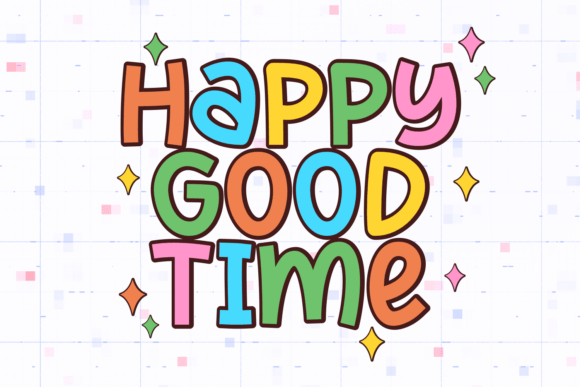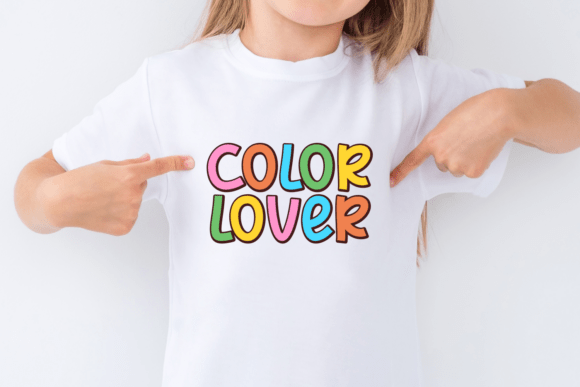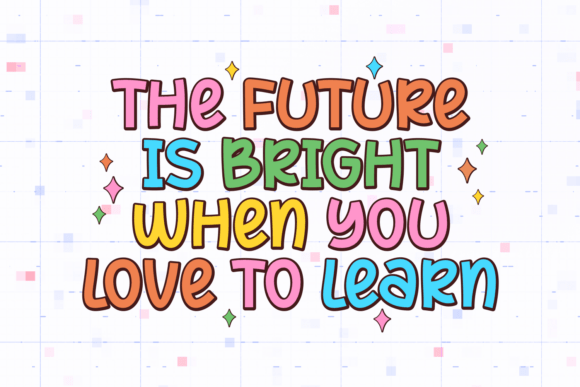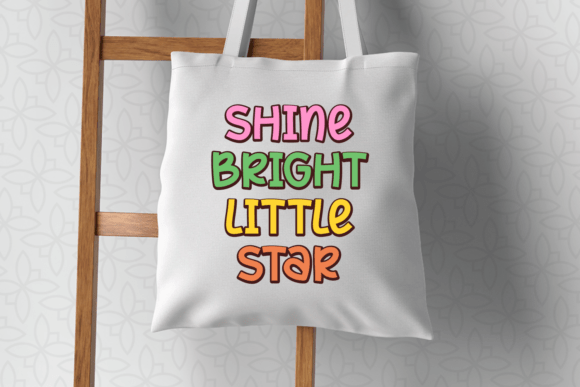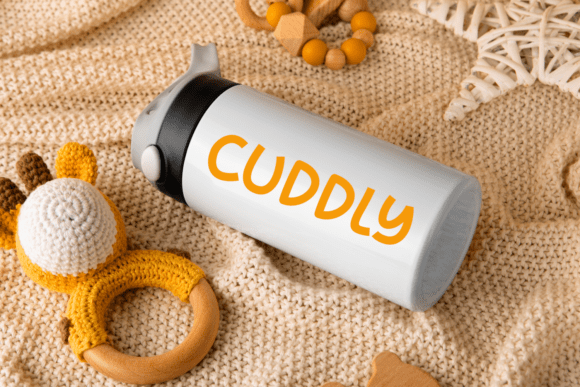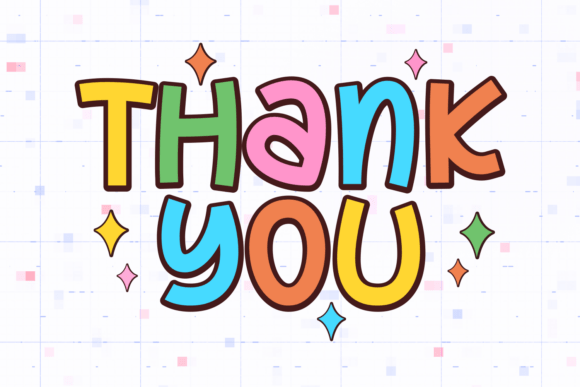
Introduction to Color Jump Font
Do you remember the joy of creating with crayons and markers as a child? The thrill of bringing a colorful world to life with every stroke and every scribble? That sense of unbridled creativity is what the Color Jump Font embodies. This vibrant typeface is a design resource that will transport you back to a time when art was a carefree expression of imagination.
As a designer, you’re always on the lookout for the perfect font to elevate your creative project. The Color Jump Font is an excellent choice for kid-friendly designs, with its rounded, bold strokes and whimsical aesthetics. Its high-quality design is perfect for backgrounds with a transparent background, making it a versatile addition to any design.
With its quirky appeal and friendly tone, the Color Jump Font is a free download that’s sure to add a touch of fun to your next project. Whether you’re working on a children’s book, a cartoon, or a playful advertisement, this font is a must-have for designers who want to inject a little magic into their work.
Key Features of Color Jump Font
- Includes a range of unique characters and glyphs for added creativity
- Perfect for designers, artists, and writers looking for a distinctive and eye-catching font
Honest Review: Color Jump Font
I recently stumbled upon the Color Jump Font and I must say, it’s been a game-changer for my design projects. The font is incredibly versatile and offers a range of styles that can add a pop of color to any creative project.
- What works well: ✨ The font is super easy to use and comes with a transparent background, making it perfect for adding text overlays on top of images or videos.
- What works well: ✨ The high-quality design ensures that the font looks great on any device, from desktops to mobile phones.
However, I did encounter a few limitations with the Color Jump Font. ⚠️ The font may not be suitable for formal or professional projects, as it has a more playful and casual vibe.
Overall, I’m thoroughly impressed with the Color Jump Font and would highly recommend it to anyone looking for a fun and creative design resource. It’s perfect for personal projects, social media graphics, or even advertising campaigns.
Tips for Getting the Most Out of Color Jump Font
To get the most out of the Color Jump Font, experiment with different font sizes, colors, and combinations to create a unique visual effect. You can also use the font in conjunction with other design elements, such as images or graphics, to add depth and interest to your design project.
The Color Jump Font is ideal for use in creative projects, such as social media graphics, blog posts, and presentations. Its unique typography style makes it perfect for designers who want to add a touch of personality to their work.